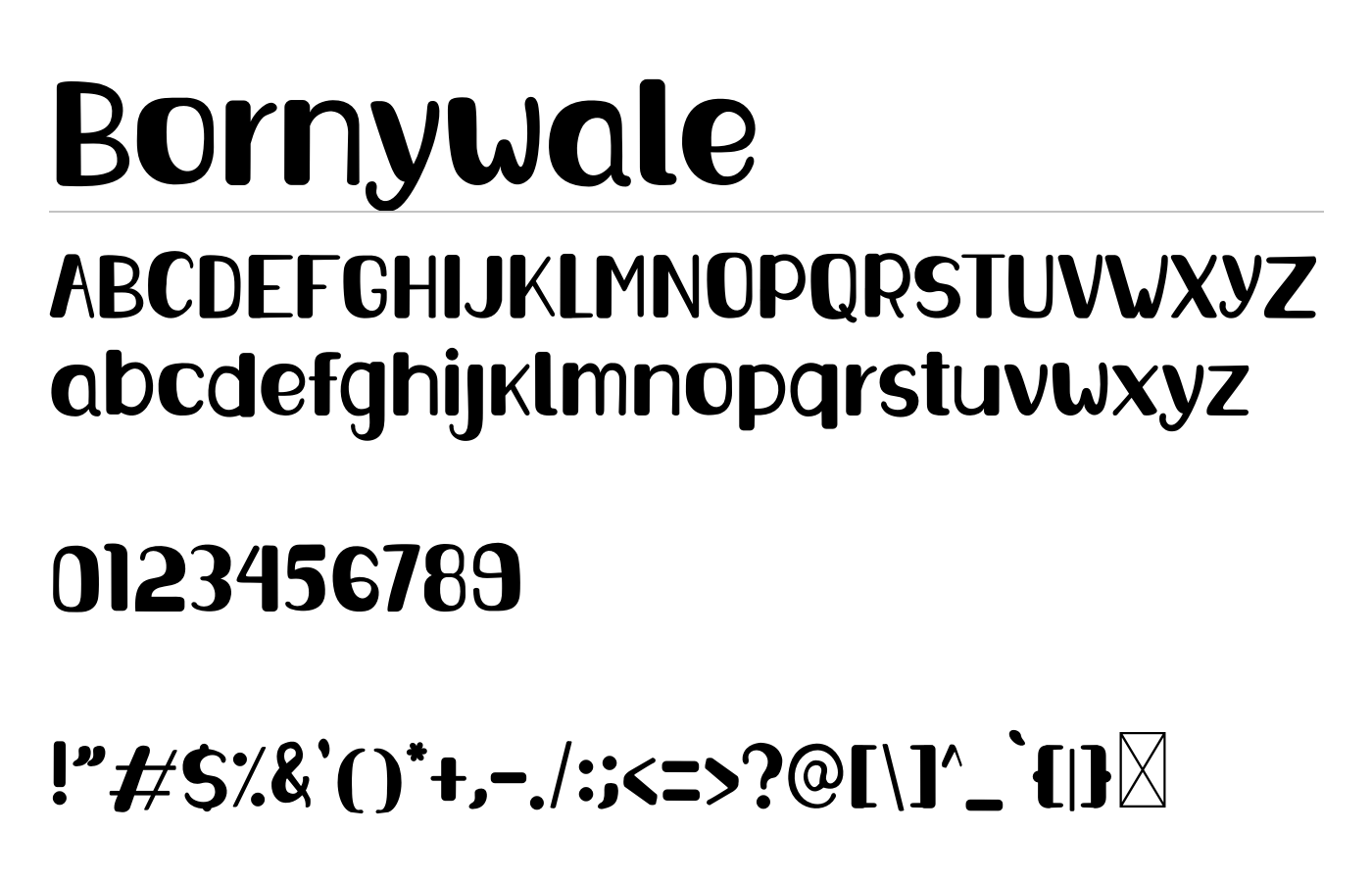
Bornywale is a playful and modern sans serif font with rounded edges and a medium weight that creates a friendly, approachable vibe. Its tall x-height and slightly narrow letterforms enhance readability while maintaining a quirky personality, making it ideal for creative branding, children’s products, and casual headlines. This font works well where a fun yet clean style is needed to engage audiences with warmth and clarity.
Bornywale Font
About Bornywale Font